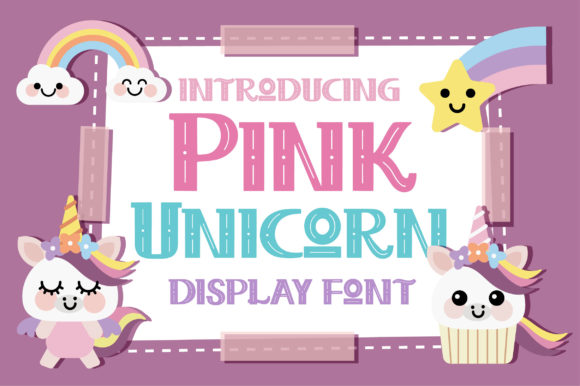
**Introducing Pink Unicorn: The Enchanting Display Font That Will Captivate Your Readers**
Prepare yourself to be swept away by the ethereal beauty and captivating presence of Pink Unicorn, a display font that exudes elegance and charm. This exquisite font, meticulously crafted by Caoca Studio, pays homage to the timeless art of calligraphy, reimagined with a modern twist.
Pink Unicorn is not just a font; it's an invitation to embark on a whimsical journey where imagination takes flight. Its graceful curves and delicate strokes evoke a sense of whimsy and delight, while its unwavering precision ensures readability and sophistication. Each character is a work of art, seamlessly blending the timeless allure of tradition with the contemporary flair of modern design.
**Unleash the Magic of Pink Unicorn:**
- **For Authors:** Introduce your characters and transport your readers to enchanting realms with Pink Unicorn. Its captivating curves and charming personality will leave a lasting impression on every page, drawing readers into your literary world.
- **For Designers:** Create captivating marketing materials, social media graphics, and website designs that stand out from the crowd. Pink Unicorn's undeniable charm will make your designs shine, attracting attention and leaving a lasting impact.
- **For Creatives:** Express your individuality and imagination through stunning invitations, personal branding, and artwork. Pink Unicorn will add a touch of magic to your creations, making them unforgettable and enchanting.
Embrace the allure of Pink Unicorn and let your creativity soar. This font is not just a tool; it's a gateway to a world of enchantment, where words dance and dreams take flight.